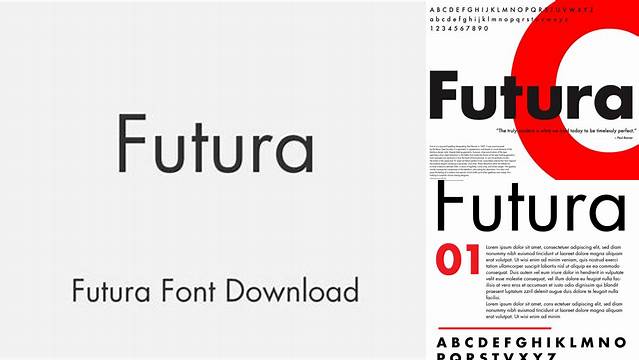
Hey guys! Are you on the hunt for the sleek, modern, and endlessly versatile Futura font? You've landed in the right spot! This guide is your ultimate resource for everything Futura, from finding those elusive free downloads to mastering its use in your designs. We'll dive deep into the world of Futura, exploring its history, variations, and how to use it like a pro. So, buckle up and let's get started!
1. Futura Font Family: An Overview
Alright, let's kick things off with a general overview of the Futura font family. This iconic typeface, designed by Paul Renner in 1927, is a cornerstone of modern typography. Its geometric shapes and clean lines give it a timeless appeal that works wonders in various design applications. When you're thinking about incorporating Futura fonts free download options into your projects, it's vital to understand the full scope of what this family offers. Futura’s design was inspired by the Bauhaus movement, which emphasized functionality and simplicity. This is evident in its almost perfectly circular O’s, sharp triangles, and consistently uniform strokes. Futura is more than just a font; it's a statement of modern design philosophy. Its legibility and clarity make it perfect for both display and body text, offering designers a reliable choice for almost any project. Plus, understanding the variations within the family—from light to bold weights, and even condensed versions—allows you to create dynamic and engaging visuals. So, when you start your Futura fonts free download search, remember you’re tapping into a legacy of design excellence.
2. Free Futura Font Alternatives
Now, while getting the official Futura font for free can be tricky (we'll get to that!), there are some fantastic free Futura font alternatives out there. These fonts capture the essence of Futura's geometric sans-serif style without costing you a dime. For those seeking Futura fonts free download options, these alternatives are worth exploring. Think of it this way: you’re not just looking for a font that looks similar; you’re aiming for that same vibe and readability. Several open-source fonts mimic Futura’s clean lines and modern feel. For example, fonts like Montserrat and Lato offer comparable aesthetics and are readily available for download. Not only do these alternatives provide a cost-effective solution, but they also often come with extensive character sets and multiple weights, giving you a lot of flexibility in your designs. Exploring these free Futura font alternatives can open up a world of possibilities, allowing you to maintain the desired aesthetic without breaking the bank. Remember, the key is to find a font that not only looks the part but also performs well in your specific design context. You’ve got options, guys, so let’s dig in!
4. The History of Futura Font
To really appreciate Futura, let’s take a quick trip back in time and explore the history of Futura font. Designed by Paul Renner in 1927, Futura was a game-changer in the world of typography. It embodies the principles of the Bauhaus movement, emphasizing simplicity, functionality, and geometric shapes. This historical context is essential when considering Futura fonts free download for your projects. Renner’s vision was to create a typeface that mirrored the modern age, moving away from the ornate styles of the past. Futura’s clean lines and geometric precision made it an instant classic, influencing countless designers and typefaces that followed. Its impact extends beyond the design world, appearing in everything from corporate logos to movie posters. Understanding the history behind Futura adds a layer of depth to your appreciation of the font. It's not just about aesthetics; it's about a design philosophy that revolutionized typography. So, when you're on the lookout for Futura fonts free download options, remember you’re engaging with a piece of design history that continues to inspire today. It's a legacy worth celebrating!
5. Futura Font Variations and Weights
One of the things that makes Futura so versatile is its range of variations and weights. When you're thinking about Futura fonts free download options, it's good to know what's out there. Futura comes in several weights, from light and regular to bold and extra-bold, giving you a lot of flexibility for different design needs. Each weight has its own distinct personality, making Futura suitable for everything from body text to headlines. Beyond the standard weights, there are also condensed and extended versions, which can be useful for fitting text into tight spaces or creating a more dramatic effect. The various styles allow you to create visual hierarchy and emphasis within your designs. For example, using Futura Bold for headings and Futura Light for body text can create a clean and modern look. When searching for Futura fonts free download or alternatives, keep these variations in mind. The right weight and style can make all the difference in achieving your desired aesthetic. It's like having a whole toolbox of fonts within one family!
6. How to Use Futura Font in Graphic Design
Okay, let's get practical. How do you actually use Futura font in graphic design? Knowing the ins and outs of this font is key if you’re considering Futura fonts free download for your projects. Futura's clean and geometric design makes it incredibly versatile, but there are some best practices to keep in mind. First off, think about the overall tone you want to convey. Futura’s modern aesthetic works well for brands that want to project a sense of sophistication and efficiency. It’s excellent for logos, headings, and body text, but it shines brightest when used deliberately. Consider the spacing and kerning – Futura’s sharp lines can sometimes require a bit of tweaking to ensure optimal readability. Also, think about pairing Futura with other fonts. It works beautifully with both serif and sans-serif fonts, depending on the effect you’re aiming for. Experiment with different weights and styles to create visual interest and hierarchy. Using Futura fonts free download or alternatives effectively means understanding its strengths and limitations. With a bit of practice, you can make Futura a powerful tool in your design arsenal. Let’s get those creative juices flowing!
7. Futura Font Pairing Suggestions
Font pairing can be tricky, but when you're working with Futura, you've got a fantastic base to build on. Let’s dive into some Futura font pairing suggestions that will help you create visually stunning designs. If you're exploring Futura fonts free download options, knowing how to pair them correctly is crucial. Futura, with its clean and geometric lines, plays well with both serif and sans-serif fonts, offering a wide range of stylistic possibilities. For a classic and elegant look, try pairing Futura with a serif font like Garamond or Times New Roman. The contrast between the geometric Futura and the traditional serifs can create a sophisticated and balanced feel. If you prefer a more modern and minimalist approach, pair Futura with another sans-serif font such as Open Sans or Montserrat. This combination maintains a consistent aesthetic while providing visual contrast through different weights and styles. Experimenting with different pairings is key to finding the perfect match for your project. Considering Futura fonts free download and pairing it effectively can elevate your design work significantly. So, go ahead, mix and match, and see what magic you can create!
8. Futura Font in Logo Design
Logos are the face of a brand, and choosing the right font is crucial. Let’s explore the role of Futura font in logo design. If you’re considering Futura fonts free download for logo projects, understanding its impact is vital. Futura’s clean, geometric shapes make it an excellent choice for logos that need to convey a sense of modernity, efficiency, and clarity. Many famous brands have used Futura in their logos, including Volkswagen and Supreme, demonstrating its versatility and timeless appeal. When using Futura in a logo, consider the overall brand identity and the message you want to communicate. Its minimalist design works well for tech companies, design firms, and any brand that values a sleek and contemporary aesthetic. Experiment with different weights and styles to find the perfect balance. Futura Bold can make a strong statement, while Futura Light offers a more subtle and refined look. Exploring Futura fonts free download alternatives can also provide variations that suit specific branding needs. Ultimately, Futura’s adaptability makes it a powerful tool for creating memorable and impactful logos. Let your brand shine with the right font!
9. Futura Font in Web Design
Web design is all about readability and visual appeal, so let’s discuss Futura font in web design. If you're diving into Futura fonts free download for your website, you’re on the right track for a modern look. Futura’s clean lines and geometric structure make it an excellent choice for creating a sleek and professional online presence. However, there are a few things to keep in mind to ensure it works well on screen. First, consider the font size and line height. Futura can sometimes appear smaller than other fonts, so you might need to increase the size slightly to maintain readability. Also, pay attention to the letter spacing and kerning, especially in headings and titles. On the web, Futura works well for both headings and body text, but it’s often best used sparingly to create visual contrast. Pair it with a more legible font for longer blocks of text to ensure a comfortable reading experience. If you’re looking at Futura fonts free download options, make sure the font files are optimized for web use to ensure fast loading times. With careful attention to detail, Futura can elevate your web design and create a sophisticated user experience. Let’s make your website pop!
10. Futura Font in Print Design
Print design requires a different set of considerations than web design. Let’s examine Futura font in print design. If your project involves Futura fonts free download for printed materials, understanding its nuances in this medium is key. Futura’s geometric precision and clean lines translate beautifully to print, making it a versatile choice for a variety of applications. From brochures and posters to books and magazines, Futura can lend a modern and sophisticated touch. In print, Futura shines in headlines and display text, where its bold forms can make a strong visual impact. It also works well for body text, but it’s crucial to choose the right weight and size for optimal readability. Consider the paper stock and printing method, as these can affect how the font appears. A lighter weight might look delicate on glossy paper but could get lost on a more textured surface. When using Futura fonts free download or alternatives for print, make sure the font files are high-quality and suitable for professional printing. With a little attention to detail, Futura can help you create stunning printed materials that leave a lasting impression. Time to get those print projects looking sharp!
11. Futura Font Licensing Explained
Understanding font licensing is crucial to avoid legal issues. Let’s get into Futura font licensing explained. If you're searching for Futura fonts free download, knowing the licensing terms is a must. The original Futura font is a commercial typeface, which means it’s not typically available for free use. However, there are different types of licenses that dictate how you can use a font, and it’s important to be aware of these. A standard commercial license usually allows you to use the font for a wide range of projects, including print and web design, but may restrict you from embedding the font in software or distributing it. Some licenses also have limitations on the number of users or devices that can use the font. When you're looking at Futura fonts free download alternatives, be sure to check the specific license for that font. Many free fonts come with open-source licenses, which allow for broad usage, but it’s always wise to double-check. Ignoring font licensing can lead to costly legal problems, so it’s always better to be informed and compliant. Let’s keep it legal, guys!
12. Futura Font and the Bauhaus Movement
Futura is deeply rooted in the Bauhaus movement, so let’s explore the connection between Futura font and the Bauhaus movement. If you’re researching Futura fonts free download, understanding its origins can enhance your appreciation for the typeface. The Bauhaus movement, which emerged in Germany in the early 20th century, emphasized simplicity, functionality, and geometric forms in art and design. Paul Renner, the designer of Futura, was heavily influenced by these principles. Futura’s clean lines and geometric shapes are a direct reflection of the Bauhaus aesthetic. The font’s design prioritizes clarity and legibility, aligning with the Bauhaus focus on functional design. When you look at Futura, you can see the influence of geometric shapes like circles, triangles, and squares. This minimalist approach was revolutionary at the time and continues to resonate today. Understanding this historical context adds depth to your use of Futura. When you’re considering Futura fonts free download options or alternatives, remember you're engaging with a typeface that embodies a significant design philosophy. Let’s celebrate the legacy of Bauhaus!
13. Alternatives to Futura Bold
Futura Bold is a powerful font, but sometimes you need a similar alternative. Let’s delve into alternatives to Futura Bold that can give you a similar impact. For those seeking Futura fonts free download options, knowing comparable fonts is essential. Futura Bold is known for its strong, geometric presence, making it ideal for headlines and branding. However, there are other fonts that offer a similar aesthetic without the cost. Montserrat Bold is a popular choice, offering a clean and modern feel with a similar weight and impact. Another excellent alternative is Proxima Nova Bold, which provides a slightly softer, more rounded appearance while maintaining a strong presence. If you’re looking for a free alternative, consider Open Sans Extra Bold, which offers great readability and a similar visual weight. When exploring Futura fonts free download alternatives, consider the specific needs of your project. Each font has its own unique characteristics, so finding the right match can make a big difference. Let’s find the perfect bold statement for your designs!
14. Alternatives to Futura Light
Futura Light is elegant and refined, but what if you need a similar, more accessible option? Let’s explore alternatives to Futura Light. If your project involves Futura fonts free download considerations, knowing other lightweight geometric fonts is crucial. Futura Light’s delicate appearance makes it perfect for body text and subtle headings. However, finding alternatives that capture the same elegance can be useful. Lato Light is a fantastic option, offering excellent readability and a similar clean, modern feel. Another great alternative is Roboto Light, which provides a slightly warmer and more approachable vibe. For those seeking free alternatives, Montserrat Light is a popular choice, known for its versatility and geometric structure. When looking at Futura fonts free download alternatives, think about the specific context of your design. Each font has its unique character, and the right choice can enhance your overall aesthetic. Let’s keep it light and stylish!
15. Futura Font in Film and Movie Posters
Futura has a cinematic history, so let’s explore Futura font in film and movie posters. If you’re a fan of Futura fonts free download and love movies, this is a fascinating intersection. Futura's clean and modern aesthetic has made it a popular choice for movie posters and title sequences for decades. Its geometric precision conveys a sense of sophistication and modernity, making it suitable for a wide range of genres. From classic films to contemporary blockbusters, Futura has graced the posters of many iconic movies. Its legibility and visual impact ensure that the title and credits stand out, capturing the audience's attention. When you see Futura on a movie poster, it often evokes a sense of sleekness and professionalism. If you’re considering Futura fonts free download or alternatives for your own film projects, remember its rich history in the cinematic world. Let’s make movie magic with typography!
16. Futura Font in Corporate Branding
Branding is all about consistency and impact, so let’s examine Futura font in corporate branding. If you're exploring Futura fonts free download options for your brand, understanding its strengths in this area is vital. Futura’s clean and geometric design makes it an excellent choice for corporate branding, conveying a sense of modernity, efficiency, and trustworthiness. Many well-known companies have incorporated Futura into their logos and brand materials, including Volkswagen and Swissair. Its versatility allows it to work well across various applications, from websites and brochures to business cards and signage. When using Futura in branding, consider the overall brand identity and the message you want to communicate. Its minimalist aesthetic is particularly well-suited for tech companies, financial institutions, and design-focused businesses. Exploring Futura fonts free download alternatives can also provide options that align with specific brand aesthetics. Ultimately, Futura’s adaptability makes it a powerful tool for creating a strong and cohesive brand identity. Let’s build brands that stand the test of time!
17. Futura Font and Typography Trends
Typography trends are always evolving, so let’s discuss Futura font and typography trends. If you’re interested in Futura fonts free download, understanding its place in current trends is essential. Futura’s timeless design means it remains relevant despite changing trends. While bold, geometric sans-serif fonts have seen a resurgence in popularity, Futura continues to hold its own due to its classic appeal. The trend towards minimalism and clean design further enhances Futura’s suitability for contemporary projects. Designers often pair Futura with other modern typefaces or use it sparingly to create visual impact. The use of variable fonts is also influencing how Futura is used, allowing for greater flexibility and customization. Staying informed about these trends can help you use Futura effectively in your designs. When considering Futura fonts free download or alternatives, think about how the font fits into the broader typographic landscape. Let’s stay ahead of the curve!
18. Futura Font and Accessibility
Accessibility is crucial in design, so let’s discuss Futura font and accessibility. If you’re considering Futura fonts free download for your projects, it’s important to think about how accessible it is to all users. Futura’s clean lines and geometric shapes generally make it legible, but there are some considerations to keep in mind. The spacing between letters and the overall contrast with the background can affect readability. For users with visual impairments, a higher contrast ratio and sufficient font size are essential. Using Futura Bold for headings and ensuring clear hierarchy can also improve accessibility. When using Futura for body text, consider pairing it with a more accessible font for longer blocks of content. Exploring Futura fonts free download alternatives that are specifically designed for accessibility can also be a good strategy. Let’s make design inclusive for everyone!
19. Futura Font and Kerning Tips
Kerning can make or break a typeface, so let’s dive into Futura font and kerning tips. If you're planning to use Futura fonts free download in your designs, mastering kerning is essential. Futura’s geometric shapes and sharp angles can sometimes create awkward spaces between letters if not kerned properly. Kerning is the adjustment of space between individual letter pairs to improve readability and visual appeal. With Futura, pay special attention to letter combinations like “AV,” “WA,” and “To,” where the shapes can create gaps. Tightening the space between these pairs can create a more balanced and professional look. Use your design software’s kerning tools to fine-tune the spacing. A little bit of adjustment can make a big difference in the overall appearance of your text. When exploring Futura fonts free download options or alternatives, remember that proper kerning is key to maximizing the font's potential. Let’s perfect those letter pairings!
20. Futura Font and Leading Tips
Leading is vital for readability, so let’s explore Futura font and leading tips. If you're considering Futura fonts free download for your designs, understanding how leading affects its appearance is crucial. Leading, or line-height, is the vertical space between lines of text. Proper leading ensures that text is easy to read and visually appealing. With Futura, the tight spacing and clean lines mean that adequate leading is essential. Too little leading can make the text appear cramped and difficult to read, while too much can create a disconnected feel. A general guideline is to set the leading to around 120% to 150% of the font size. Experiment with different leading values to find the sweet spot for your specific design. For longer blocks of text, slightly more leading can improve readability. When using Futura fonts free download or alternatives, remember that the right leading can enhance the font’s elegance and clarity. Let’s make your text breathe!
21. Futura Font in Editorial Design
Editorial design requires a balance of aesthetics and readability, so let’s discuss Futura font in editorial design. If you're thinking about using Futura fonts free download for your publications, understanding its strengths in this context is important. Futura’s clean and modern aesthetic makes it a versatile choice for magazines, books, and newspapers. Its geometric shapes and clear letterforms can create a sophisticated and professional look. In editorial design, Futura works well for both headings and body text, but it’s important to consider the overall layout and design. Using different weights and styles of Futura can create visual hierarchy and emphasis. For body text, choose a weight that is easy to read and set the leading and kerning appropriately. Pairing Futura with a complementary serif or sans-serif font can also enhance the design. When exploring Futura fonts free download alternatives, look for fonts that offer good readability and a variety of weights and styles. Let’s create engaging and visually appealing publications!
22. Futura Font in Poster Design
Posters need to grab attention, so let’s examine Futura font in poster design. If you’re considering Futura fonts free download for your posters, understanding how to use it effectively is crucial. Futura’s bold and geometric design makes it an excellent choice for creating eye-catching posters. Its clean lines and strong shapes can convey a sense of modernity and sophistication. In poster design, Futura works well for both headlines and supporting text. Using Futura Bold for the main headline can make a powerful statement, while Futura Light can be used for smaller text elements. Consider the overall composition and color scheme of your poster. Futura pairs well with a variety of design styles, from minimalist to more complex layouts. When exploring Futura fonts free download alternatives, think about how the font will stand out and communicate your message effectively. Let’s design posters that make an impact!
23. Futura Font and its Geometric Construction
Let's get into the nitty-gritty of Futura font and its geometric construction. If you're into Futura fonts free download, understanding its design principles can help you use it better. Futura is renowned for its pure geometric forms, based on simple shapes like circles, triangles, and squares. This geometric construction gives Futura its distinctively modern and clean appearance. Paul Renner's design was influenced by the Bauhaus movement, which emphasized functionality and simplicity. Futura’s letterforms are almost perfectly geometric, with consistent stroke weights and minimal embellishments. The circular “O” and the triangular “A” are prime examples of this geometric approach. Understanding these construction principles can help you appreciate Futura’s elegance and versatility. When searching for Futura fonts free download options or alternatives, keep an eye out for fonts that share this geometric foundation. Let’s celebrate the geometry of typography!
24. Futura Font and Legibility in Small Sizes
Legibility is key, especially in small sizes, so let’s discuss Futura font and legibility in small sizes. If you’re thinking about Futura fonts free download, it’s crucial to know how well it performs in smaller text. While Futura’s clean lines and geometric shapes make it highly legible in larger sizes, its performance can vary in smaller sizes. The tight spacing and uniform stroke weights can sometimes make it challenging to read in small text. To improve legibility, consider using a slightly larger font size or increasing the leading. Choosing a weight that is not too light or too bold can also help. For body text, it’s often best to pair Futura with a more legible font designed specifically for smaller sizes. Exploring Futura fonts free download alternatives that offer better readability in small sizes can also be a good strategy. Let’s ensure your text is readable at every size!
25. Futura Font and Display vs. Body Text
Let's break down Futura font and display vs. body text to understand its best uses. When considering Futura fonts free download, knowing how it performs in different contexts is essential. Futura is incredibly versatile, but it shines in different ways depending on whether it's used for display or body text. For display text, such as headlines and titles, Futura’s bold geometric shapes make a strong and modern statement. Its clean lines and sharp angles grab attention and convey a sense of sophistication. However, for body text, Futura can sometimes be less legible, especially in longer blocks of content. The tight spacing and uniform stroke weights can make it slightly harder to read than fonts specifically designed for body text. In these cases, pairing Futura with a more legible font, or using a lighter weight, can improve readability. When looking at Futura fonts free download options or alternatives, think about how you plan to use the font and choose accordingly. Let’s make the most of Futura’s versatility!
26. Futura Font and Monospaced Alternatives
Monospaced fonts have their unique charm, so let’s explore Futura font and monospaced alternatives. If you're interested in Futura fonts free download but also love the monospaced look, this is for you! Futura is a proportional font, meaning each letter takes up a different amount of horizontal space. Monospaced fonts, on the other hand, have the same width for every character, creating a uniform, typewriter-like appearance. While there isn't a direct monospaced version of Futura, there are fonts that capture a similar geometric and modern feel in a monospaced format. Fonts like Fira Mono and Source Code Pro offer a clean, minimalist aesthetic reminiscent of Futura, while maintaining the fixed-width characteristic of monospaced fonts. These fonts are often used in coding environments and for designs that need a technical or retro look. When considering Futura fonts free download alternatives, exploring monospaced options can add a unique twist to your projects. Let’s mix it up with some monospaced magic!
27. Futura Font and Cyrillic/Greek Support
Language support is crucial for global designs, so let’s discuss Futura font and Cyrillic/Greek support. If you’re planning to use Futura fonts free download in multilingual projects, understanding its language capabilities is essential. The original Futura font family primarily supports Latin characters, which are used in English and many other Western languages. However, some extended versions of Futura include support for Cyrillic and Greek alphabets, allowing you to use the font in Russian, Ukrainian, Greek, and other languages that use these scripts. When working with non-Latin alphabets, it’s important to ensure that the font you choose provides full character support and maintains the aesthetic integrity of the typeface. Exploring Futura fonts free download alternatives that offer comprehensive Cyrillic and Greek support can be a good strategy if you need to design for a global audience. Let’s make typography inclusive across languages!
28. Futura Font and Variable Fonts
Variable fonts offer incredible flexibility, so let’s explore Futura font and variable fonts. If you’re intrigued by Futura fonts free download and the latest font technology, this is for you! Variable fonts are a relatively new font format that allows for a wide range of stylistic variations within a single font file. This means you can adjust parameters like weight, width, and slant without needing multiple font files. While there isn't a widely available variable font version of the original Futura yet, the concept is incredibly exciting. A variable Futura font could offer unprecedented control over the font’s appearance, allowing designers to fine-tune it for specific needs. Keep an eye out for future developments in this area, as variable fonts are becoming increasingly popular. In the meantime, exploring Futura fonts free download alternatives that offer variable font versions can give you a taste of this technology. Let’s embrace the future of typography!
29. Futura Font and the Future of Type Design
Type design is always evolving, so let’s consider Futura font and the future of type design. If you’re passionate about Futura fonts free download and typography in general, thinking about its future is fascinating. Futura’s timeless design and historical significance ensure its continued relevance in the world of type. As technology advances and design trends evolve, Futura will likely adapt and find new applications. Variable fonts, as mentioned earlier, could offer exciting possibilities for Futura, allowing for greater customization and flexibility. The ongoing trend towards digital accessibility will also influence how Futura is used, with a focus on ensuring legibility and readability across various devices and platforms. Considering Futura fonts free download options and its place in the broader landscape of type design helps us appreciate its enduring legacy. Let’s look ahead to the exciting future of typography!
30. Resources for Learning More About Futura Font
Want to deepen your knowledge of Futura? Let’s explore some resources for learning more about Futura font. If you're serious about Futura fonts free download and mastering its use, these resources will be invaluable. There are countless books, articles, and online tutorials that delve into the history, design principles, and best practices for using Futura. Websites like Fonts.com and MyFonts offer detailed information about Futura and its variations. Design blogs and typography communities often feature articles and discussions about Futura and its applications. Exploring the works of designers who have used Futura extensively can also provide inspiration and insights. Additionally, online courses and workshops on typography can help you develop a deeper understanding of Futura and other typefaces. Remember, continuous learning is key to becoming a skilled designer. Let’s dive into these resources and become Futura experts!